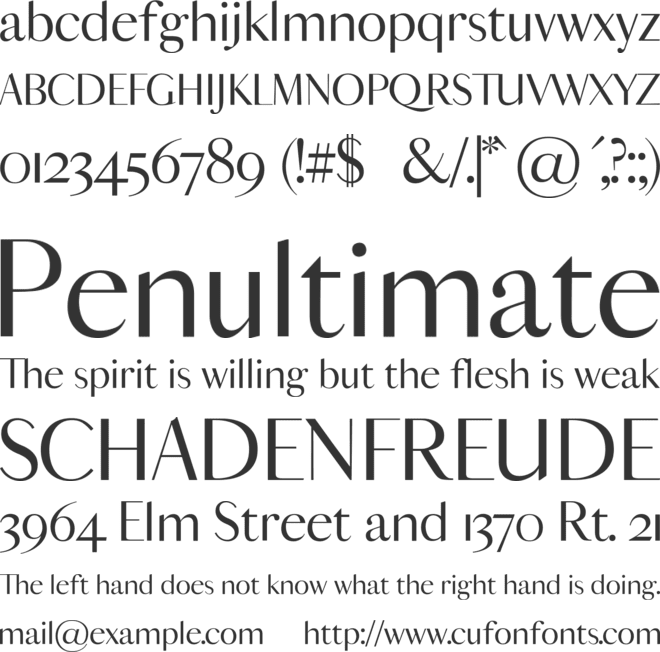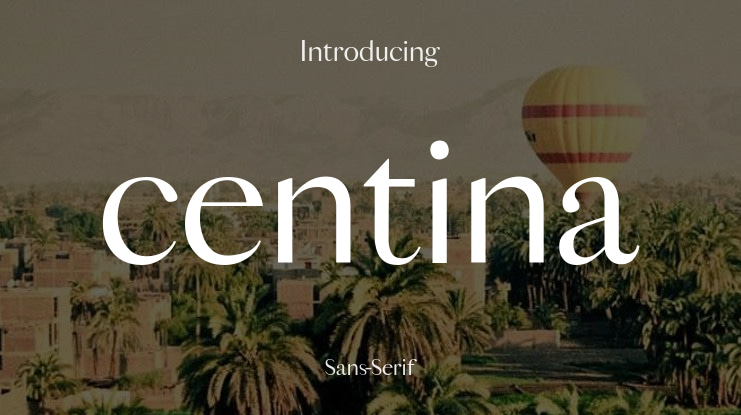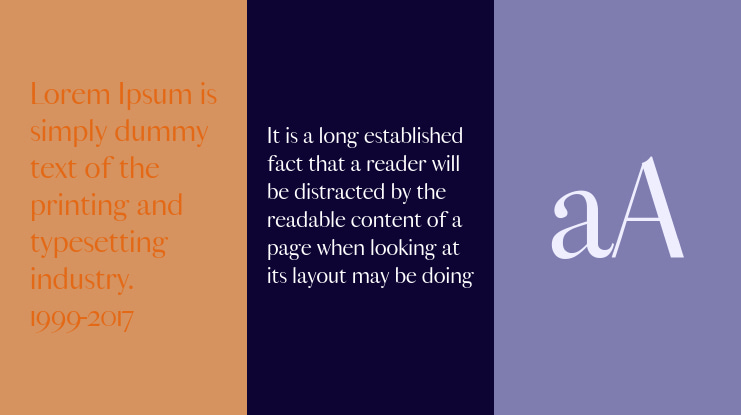
centina Font Family
Centina is a chic, elegant classic serif with multilingual support—perfect for boutique branding, editorial layouts, and timeless packaging.